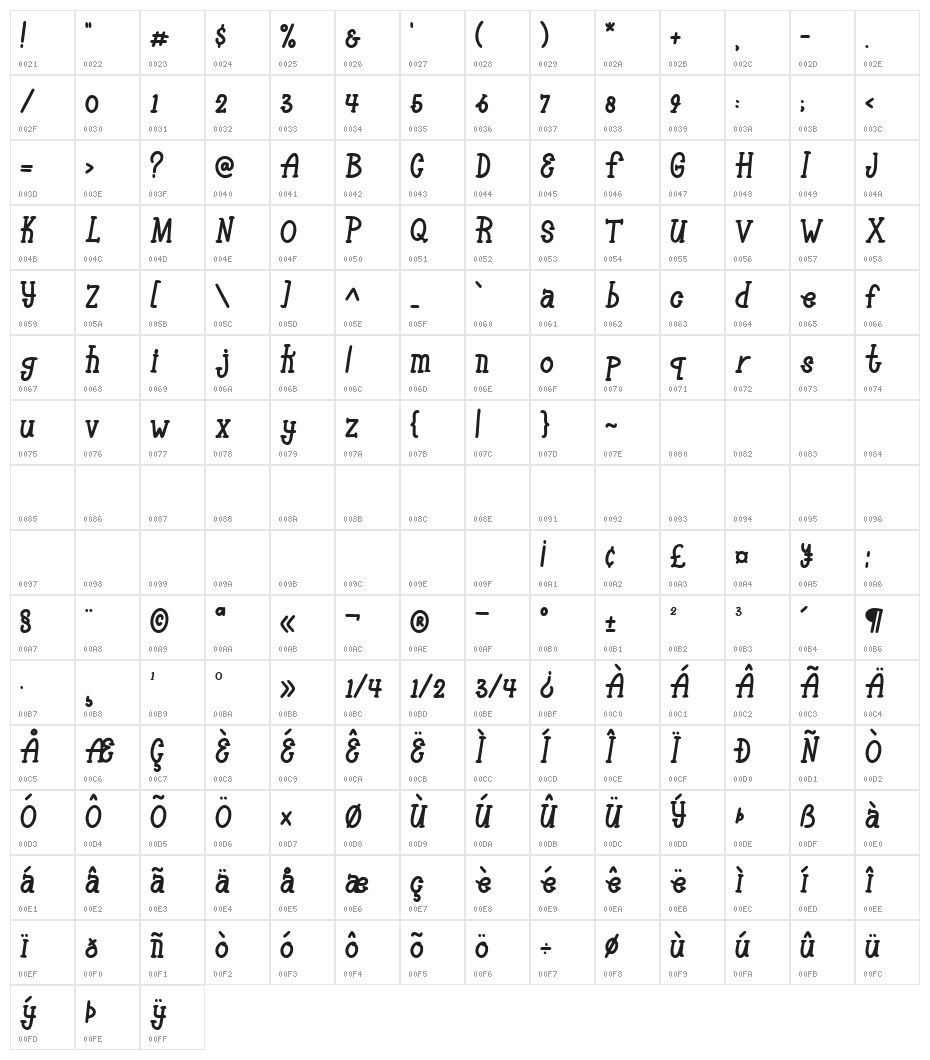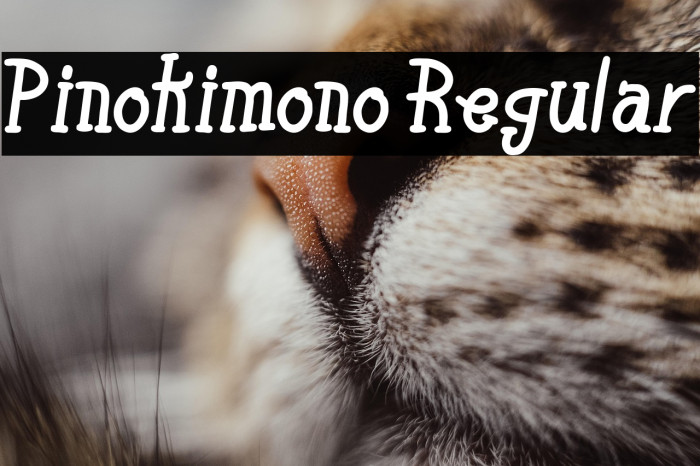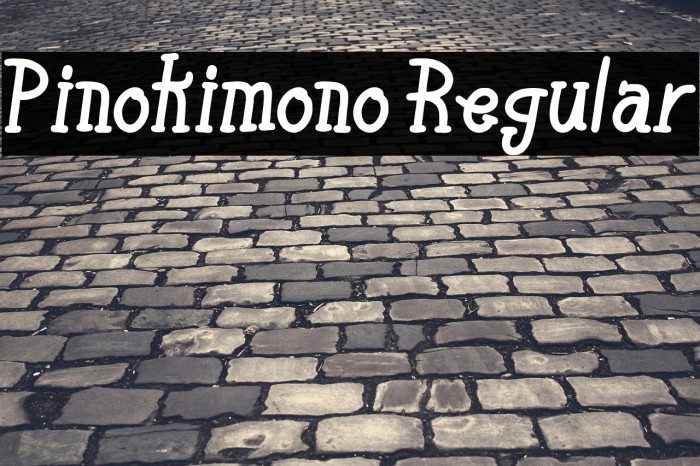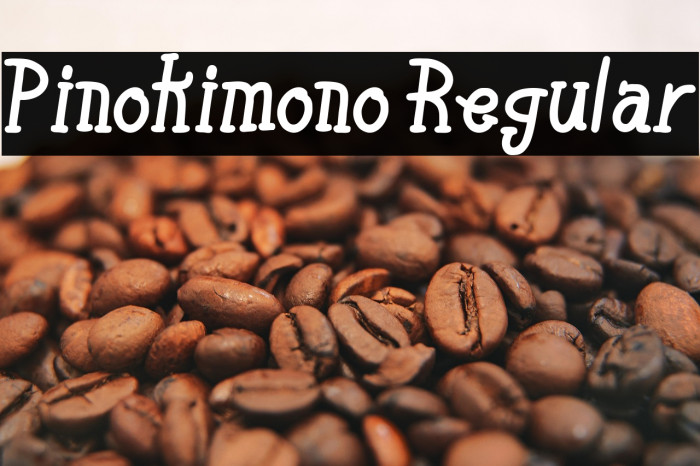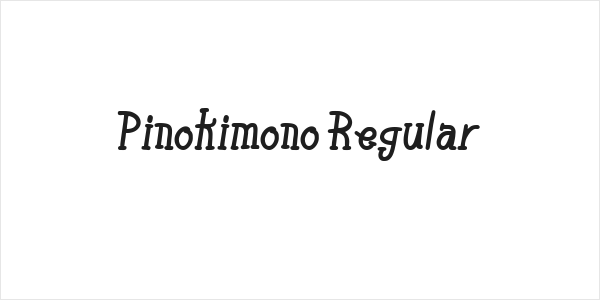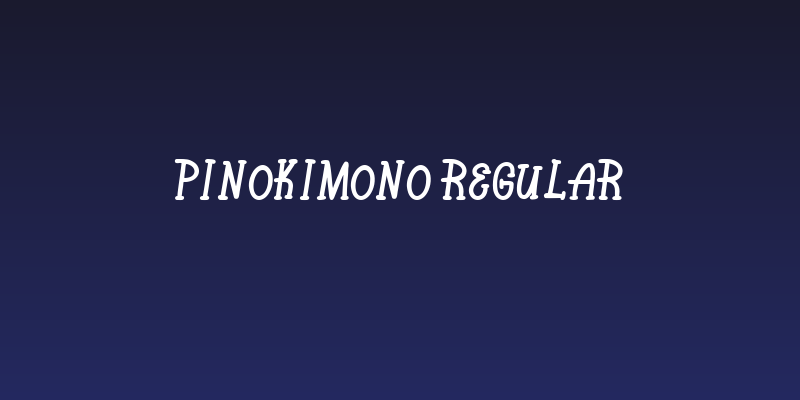
Pinokimono Regular Font
Pinokimono Regular Description
This font features a playful and whimsical style with a handwritten appearance. The characters are bold and rounded, with a slight slant that adds to its casual and friendly look. The uppercase letters are distinct and easily readable, while the lowercase letters maintain a consistent flow. Numbers and special characters are designed to match the overall aesthetic, ensuring a cohesive look across all text. The font's unique style makes it suitable for creative and informal projects.
Overall StylePlayful
Use CaseHeadlines, Logos, Informal Text
Proposed ProjectsIdeal for children's books, greeting cards, playful branding, and casual invitations.